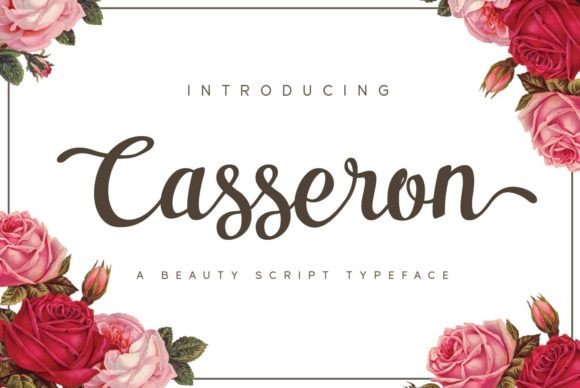
**Introducing Casseron Font - The Epitome of Delicate and Well-Rounded Handwritten Typography!**
In the realm of digital typography, Casseron Font emerges as a radiant beacon, captivating hearts with its delicate strokes and well-rounded curves. This enchanting script font, lovingly crafted by the ingenious minds at P4tcreativa, is the perfect companion for your creative endeavors, ready to elevate your designs to unprecedented heights.
With Casseron Font at your fingertips, you can effortlessly inject a touch of elegance and sophistication into your wedding invitations, making them heirlooms to be cherished for generations to come. Imagine your guests' eyes sparkling with delight as they receive these beautifully crafted invitations, adorned with the timeless charm of Casseron's graceful lines.
Birthdays take on a new level of joyous celebration with Casseron Font gracing your handmade cards. Its playful and whimsical nature adds a personal touch that makes each card a heartfelt expression of your love and affection. Let Casseron Font dance across the page, carrying your heartfelt sentiments with grace and charm.
Casseron Font is more than just a font; it's an artistic journey that invites you to unleash your creativity. Whether you're a seasoned designer or just starting to explore the world of typography, Casseron Font is your trusted guide, ready to lead you to typographic excellence. Its versatility knows no bounds, making it the perfect choice for personal branding projects, adding a unique and memorable touch to your logo and branding materials.